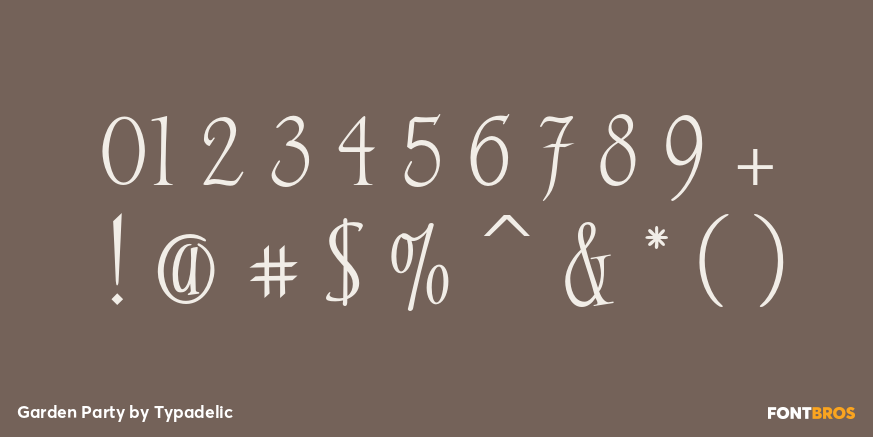
Garden Party
Font Family by Typadelic
Garden Party has a calligraphic feel without appearing formal. The ample x-height, short ascenders and descenders make this a distinctive typeface.